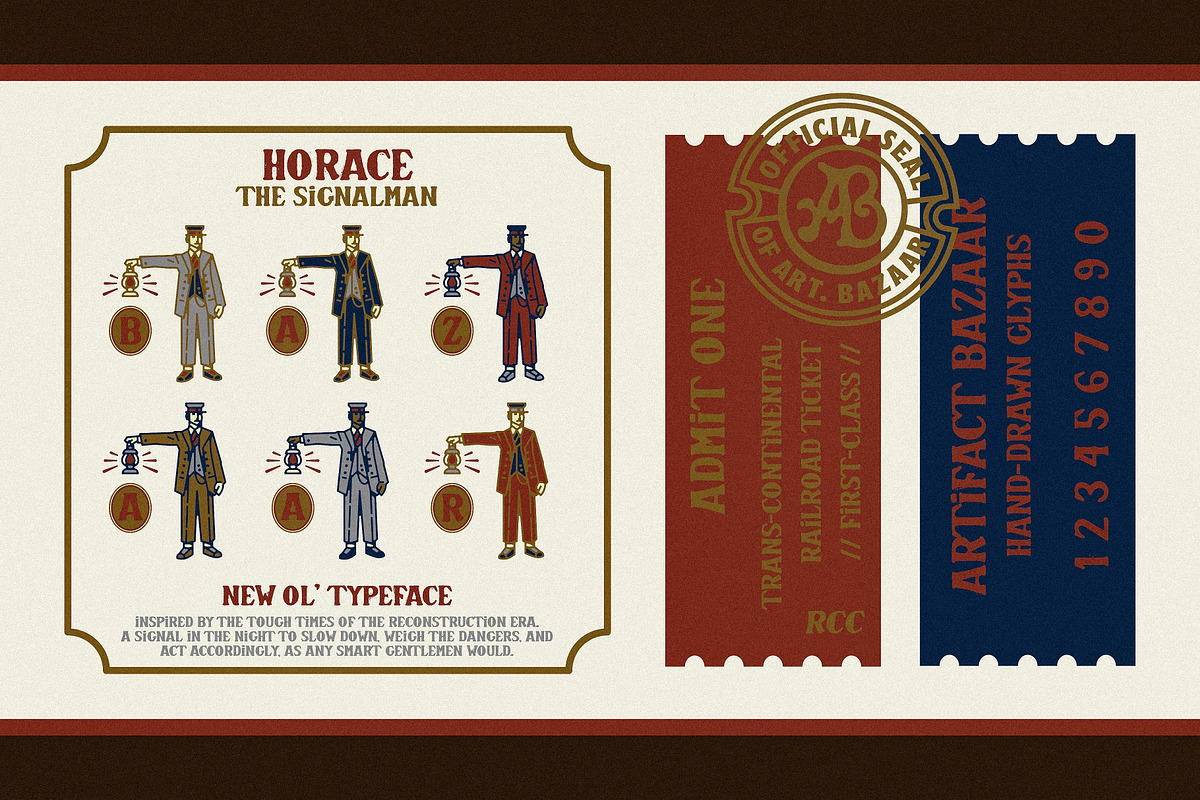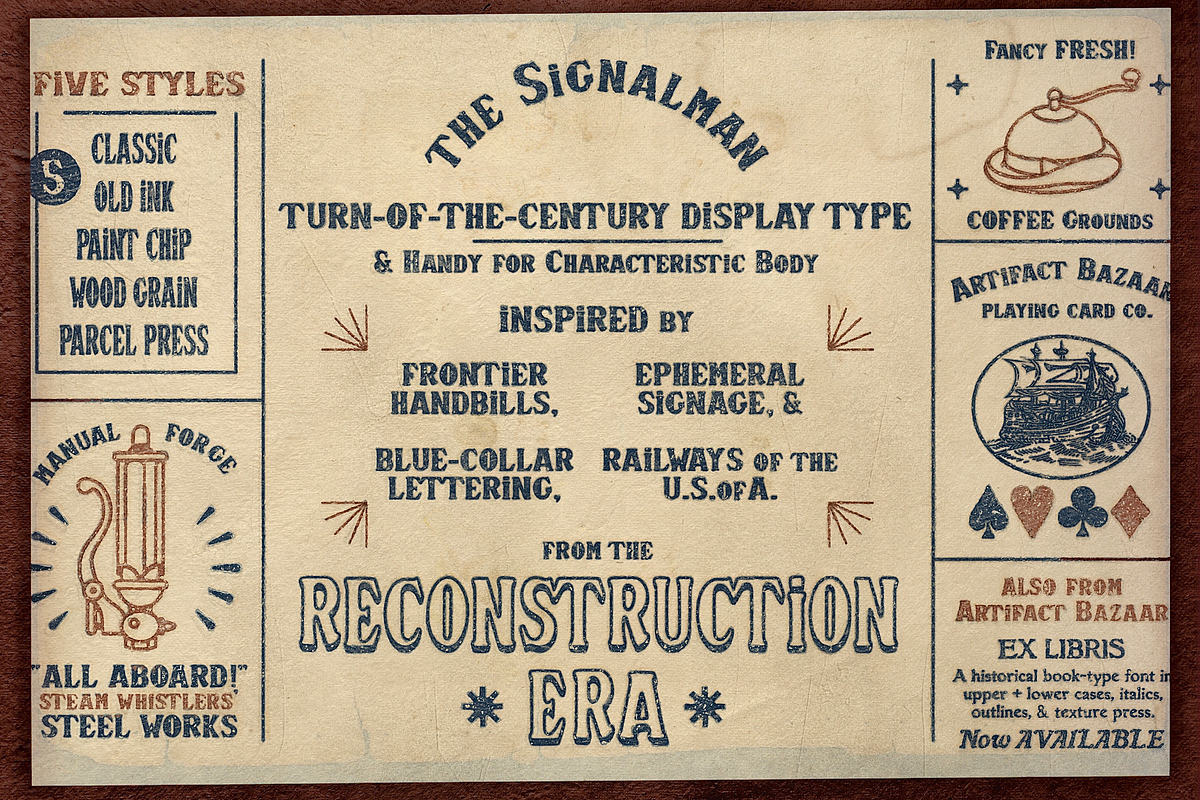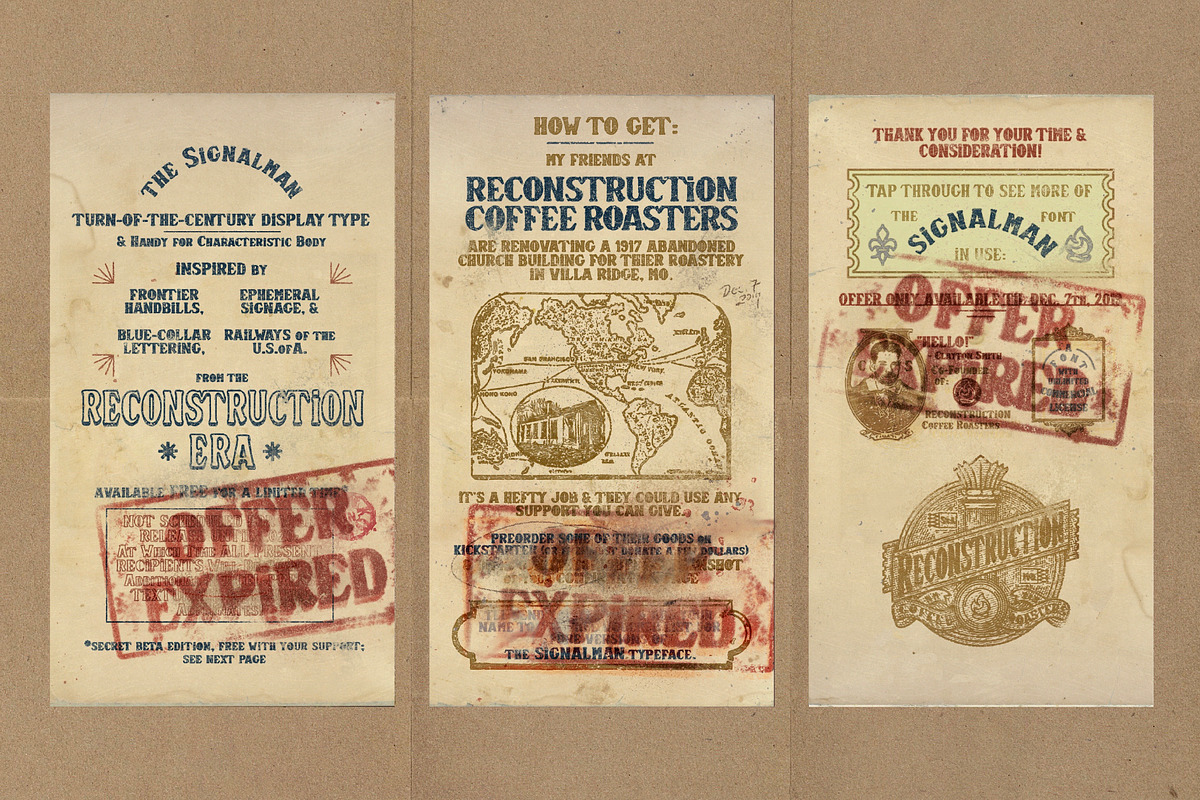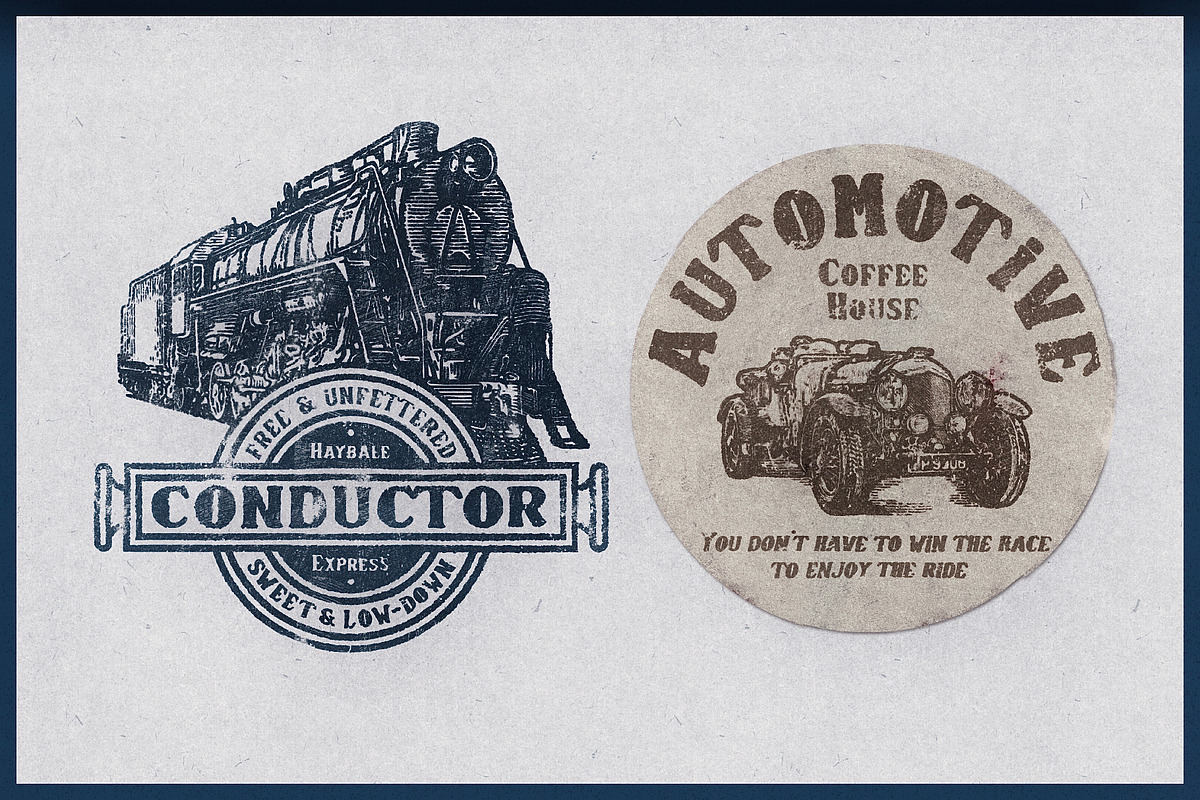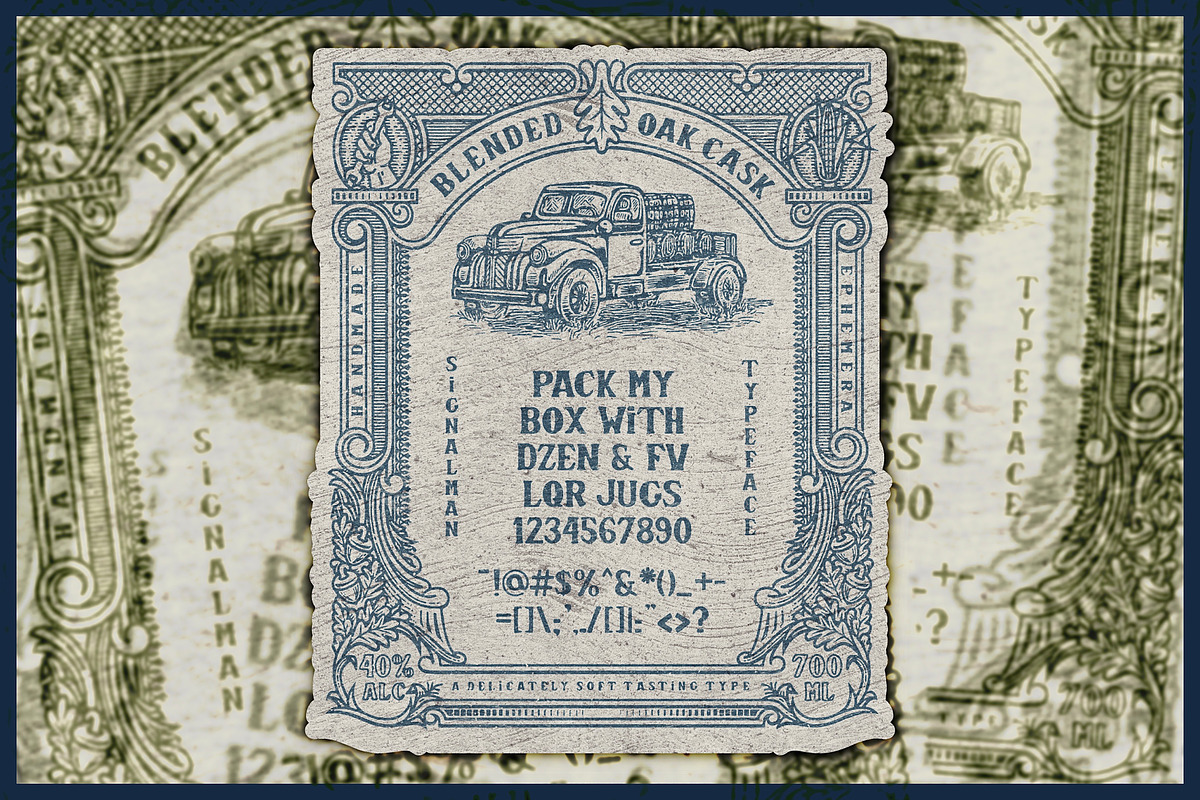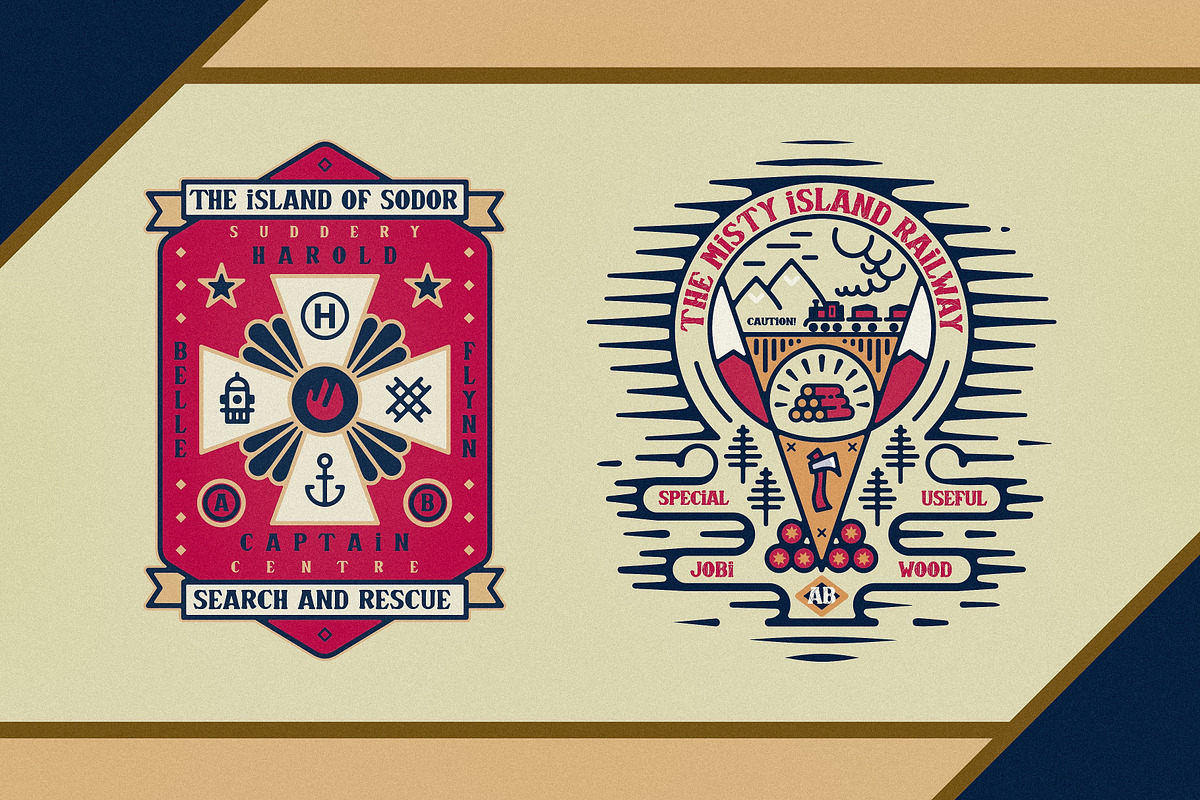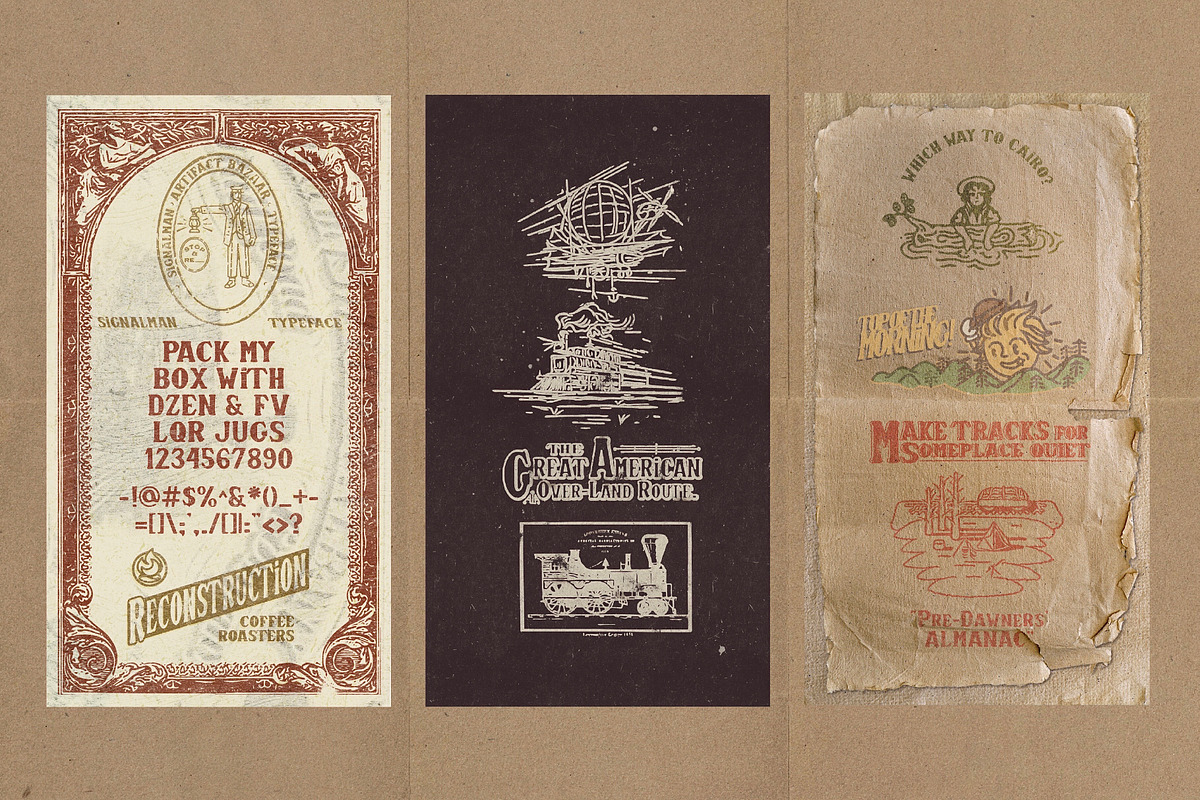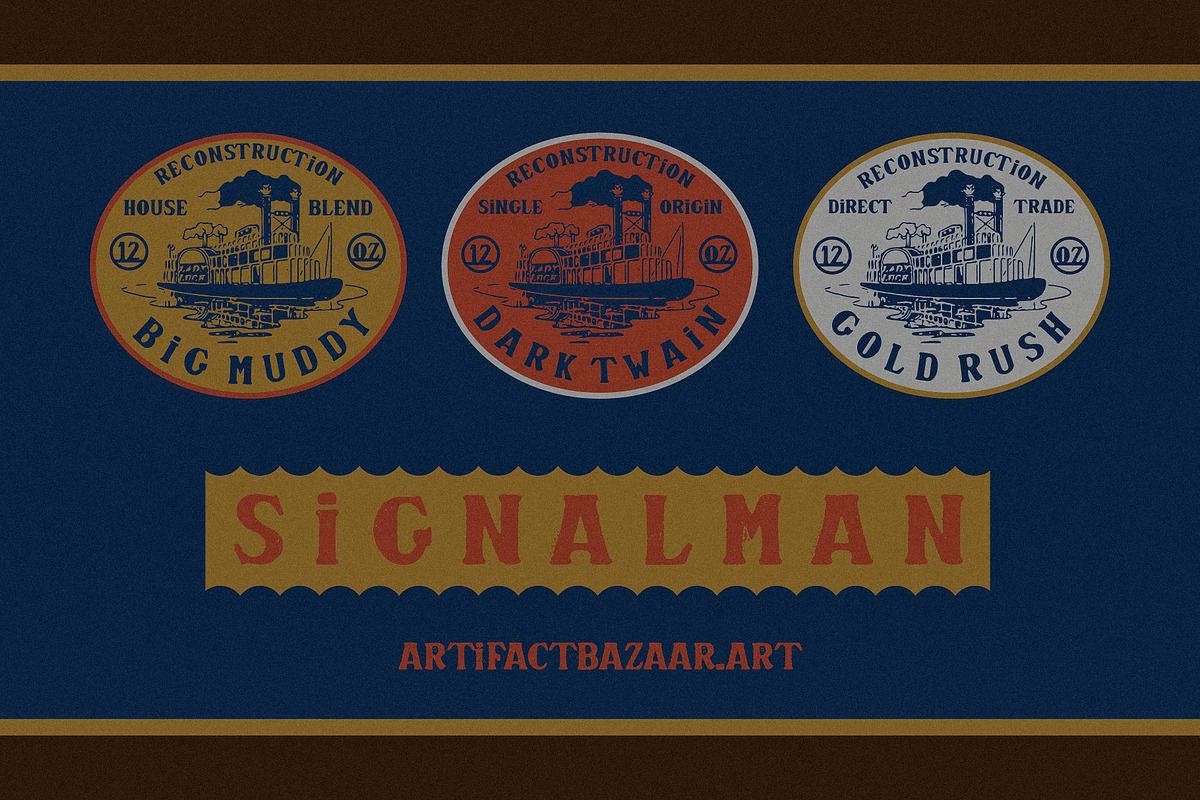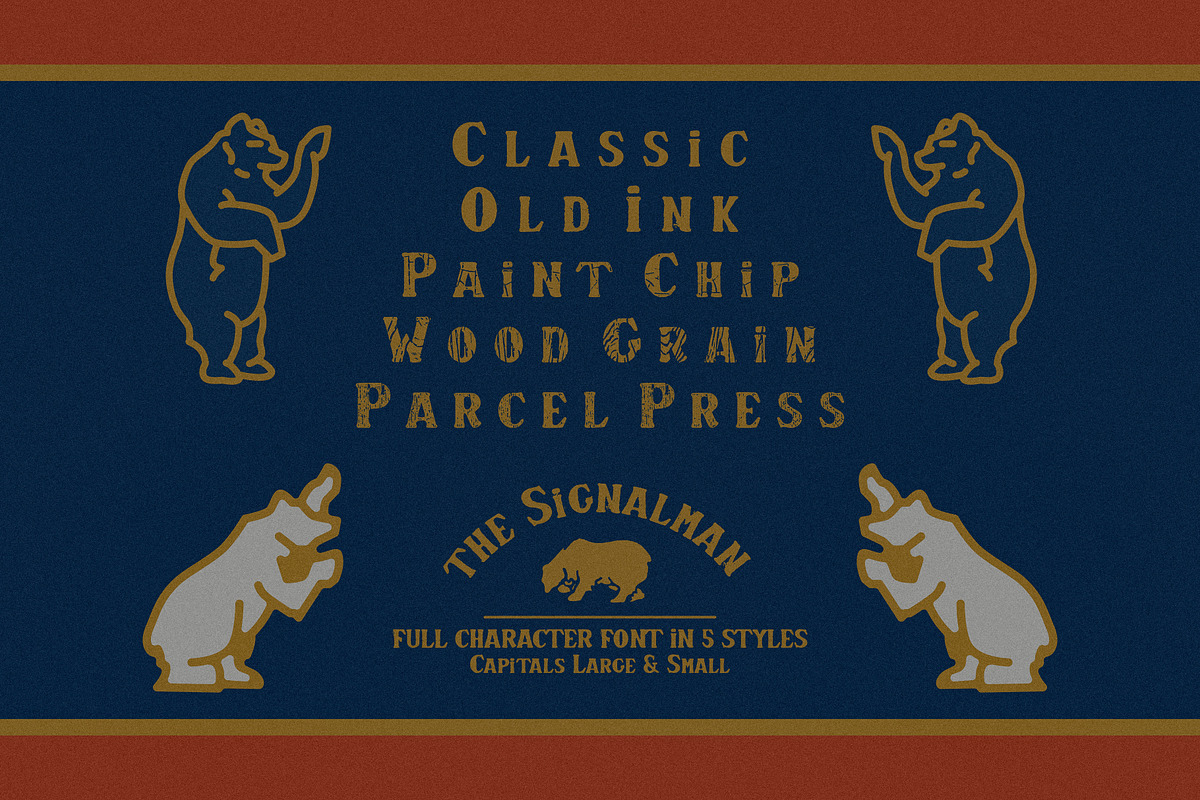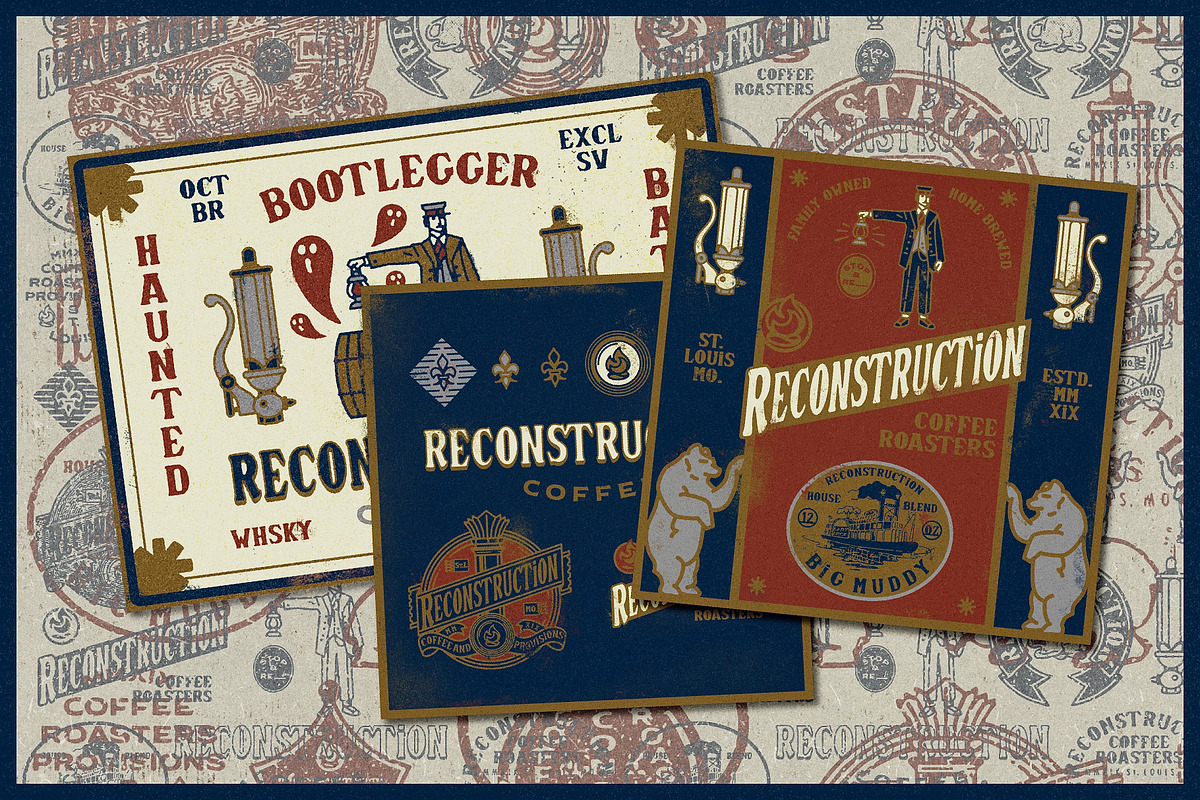
Signalman | An Old Soul Serif
A new ole typeface, forged from the tough times of the Reconstruction Era. A signal in the night to slow down, weigh the dangers, and act accordingly as a smart gentleman would. Signalman is a hand-drawn serif inspired by Frontier Handbills, Blue-Collar Lettering, Ephemeral Signage, and Railways of the U.S. of A. Perfect for vintage work, coffee, beer - anything with a solid old soul.
Full character sets
Large & Small Caps
Texture variations in upper and lowercase keystrokes
5 Unique Styles
Classic
Old Ink
Paint Chip
Wood Grain
Parcel Press